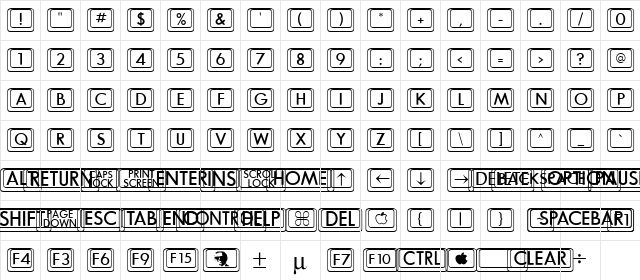
Davy's Big Key Capitals Regular
Design Context for Davy's Big Key Capitals Typeface
Davy's Big Key Capitals is a composed and adaptable typeface that performs quietly and consistently across a wide range of design contexts.